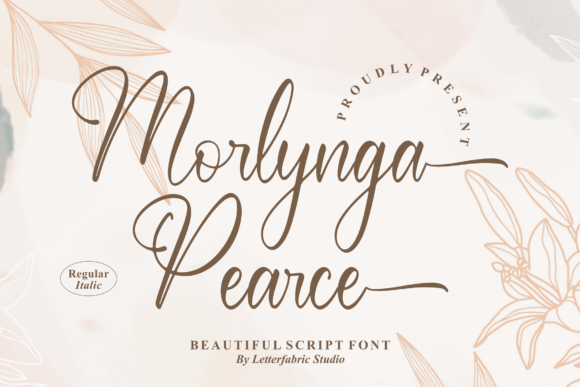
Dive into the world of typography with Morlynga Pearce Font, a captivating script font family that exudes both delicacy and dynamism. Designed by the talented Letterfabric, this font embodies elegance and charm, making it the perfect choice for those seeking a touch of personalization in their creative endeavors.
Whether you're a seasoned designer or just starting your design journey, Morlynga Pearce Font is the key to unlocking your creative potential. With its graceful curves, beautiful flow, and exquisite details, this script font will add a captivating touch to your wedding invitations, thank you cards, quotes, greeting cards, logos, and business cards. Explore the possibilities and let your designs flourish with Morlynga Pearce's charm.
This font's PUA encoding makes it incredibly user-friendly, allowing you to access its entire repertoire of glyphs and swashes effortlessly. Open up a world of typographic artistry and let Morlynga Pearce guide you towards breathtaking creations.
Embrace the artistry of Morlynga Pearce Font and elevate your designs to new heights. Its versatility knows no bounds, making it the ultimate choice for those who seek a touch of refinement and individuality in their designs. Experience the magic of Morlynga Pearce and unveil the beauty of personalized typography.